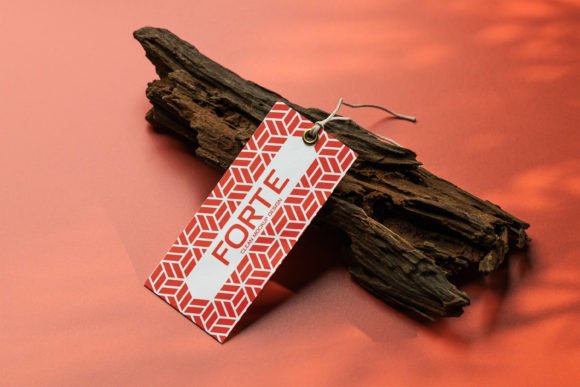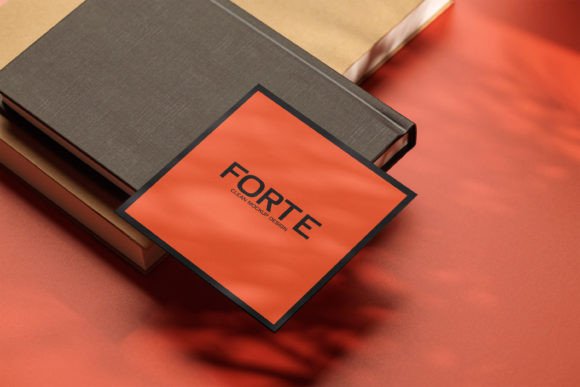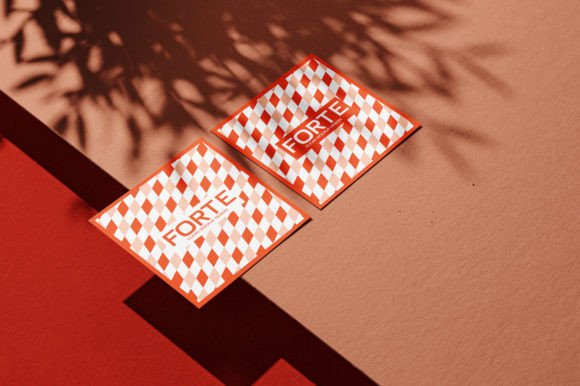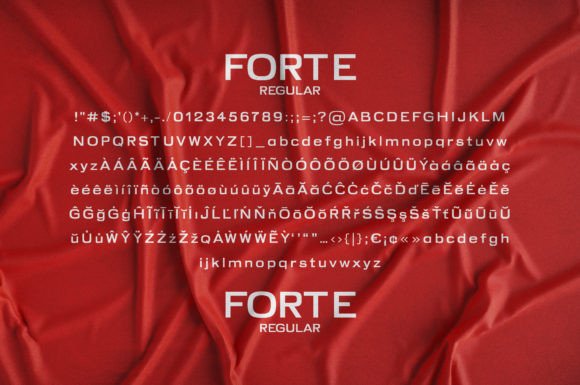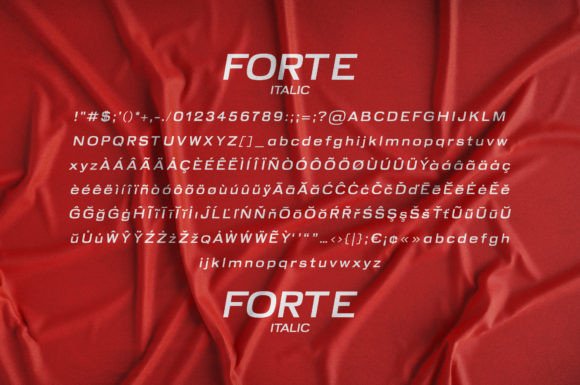
Unlock Your Creative Potential with the Power of Forte Font
Have you ever stared at a blank page, feeling like the perfect font is just out of reach? You know the feeling – the one where every font you try just doesn’t quite capture the essence of your design. But what if you had a secret weapon at your disposal, a font that could elevate your designs and leave a lasting impression?
Enter Forte Font, a simple yet powerful sans serif typeface designed to tackle even the most challenging design projects. With its versatility and wide range of applications, Forte Font is the ultimate tool for designers looking to create bold, eye-catching designs that stand out from the crowd. Whether you’re working on a brochure, a video game cover, or a social media post, Forte Font has got you covered.
Forte Font Key Features
- Font Family: Forte Font is a sans-serif font family designed for modern and professional applications.
- Unique Characteristic: The Forte Font features a distinctive geometric shape with clean lines and a high x-height, making it highly legible and suitable for body text.
- Language Support: Designed to support a wide range of languages, including Latin, Cyrillic, and Greek alphabets, making it a versatile choice for global applications.
Forte Font Review
Forte Font is a bold, sans-serif font that aims to make a statement on digital platforms. When used correctly, it can be a real game-changer for designers looking to add some extra oomph to their designs. ✨ Here are a few things that Forte Font does well:
- It’s highly legible, even at small font sizes
- Its bold lines and geometric shapes make it perfect for headlines and titles
- It’s highly customizable, allowing designers to adjust the font weight, style, and more
However, like any font, Forte Font has its limitations. ⚠️ Here are a few things to keep in mind:
- It may be too bold for some designs, overpowering other elements
- It can be difficult to read at very small font sizes
- It may not be suitable for body text, as it can be tiring to read in large quantities
Overall, I think Forte Font is a solid choice for designers who want to make a statement. While it may have some limitations, its bold lines and geometric shapes make it perfect for headlines and titles. Just be sure to use it sparingly, and pair it with other fonts that complement its bold style.
Using Forte Font Effectively
To get the most out of Forte Font, follow these tips:
- Use it for headings and titles to create a strong visual impact.
- Pair it with a sans-serif font for body text to create a clean and modern look.
- Experiment with different font sizes and colors to create contrast and visual interest.
Common Use Cases for Forte Font
Forte Font is ideal for:
- Modern branding and identity design.
- Corporate and business communications.
- Web design and digital marketing materials.
For a more professional look, use Forte Font with a high-resolution image or graphic element.
Experiment with different font combinations to create a unique and personalized design.
Montserrat is a modern sans-serif font designed by Julieta Ulanovsky. It’s ideal for use in digital products, such as websites and mobile apps, where a clean and legible font is required. Montserrat is more geometric and has a wider range of weights compared to Forte Font, making it a great choice for titles and headings.
Comparison to Forte Font: Montserrat is more modern and has a stronger emphasis on geometric shapes, whereas Forte Font has a more classic and elegant feel. Montserrat is also more versatile and can be used in a wider range of contexts.
Open Sans is a popular sans-serif font designed by Steve Matteson. It’s a great choice for use in digital products, such as websites and mobile apps, where a clean and legible font is required. Open Sans is more neutral and has a softer feel compared to Forte Font, making it a great choice for body text.
Comparison to Forte Font: Open Sans is more neutral and has a softer feel compared to Forte Font, which is more elegant and classic. Open Sans is also more readable in small sizes and on low-resolution displays.